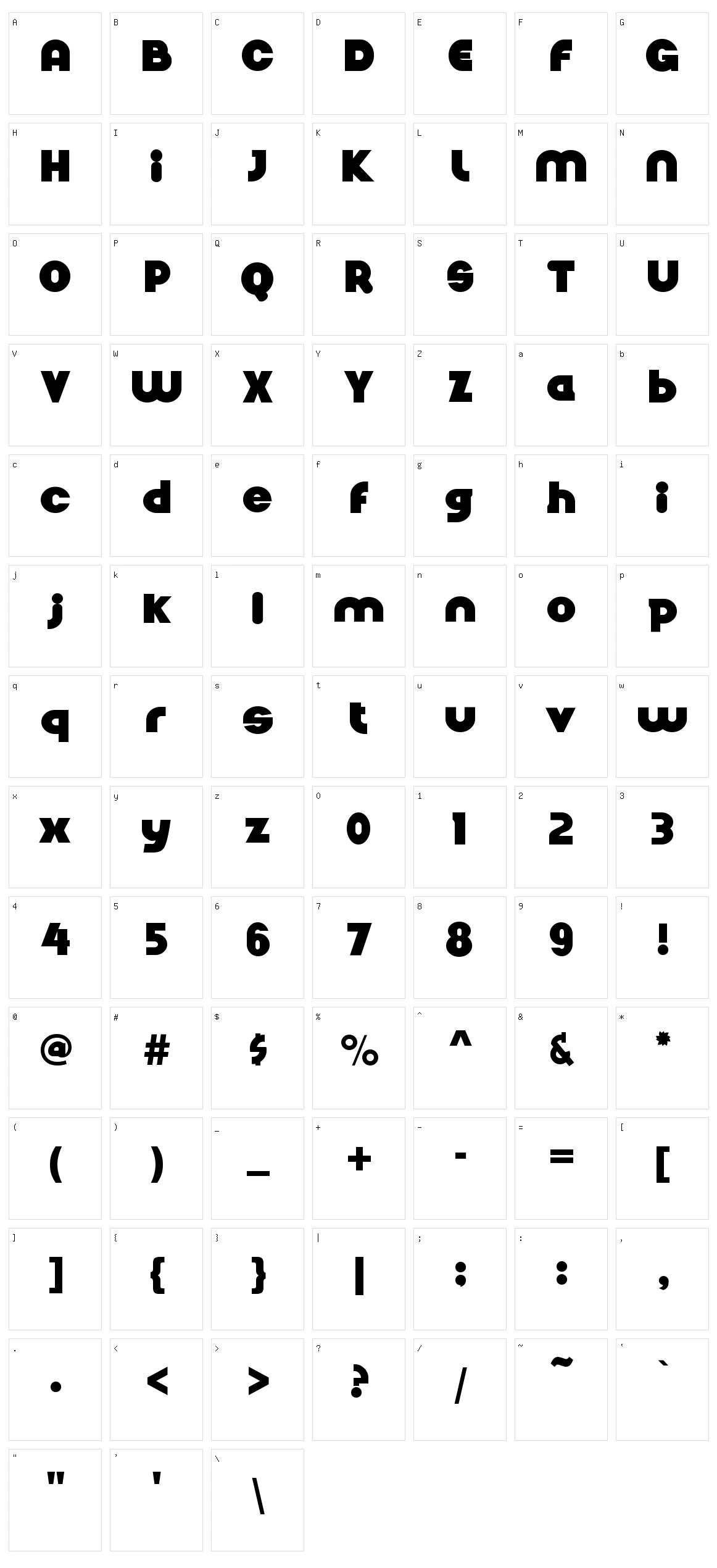
The free font Nickel Bumpy is carefully designed by Galdino Otten Fonts, showcasing a thoughtful balance of creativity and usability and falls under the Groovy font style. When you download the ZIP file, it contains only 41.4 KB of font files, making it lightweight and quick to download. Please review the license details below to understand permitted usage and distribution rights. If license information is not available, we recommend using this font for personal projects only or contacting the author directly for commercial usage permissions.